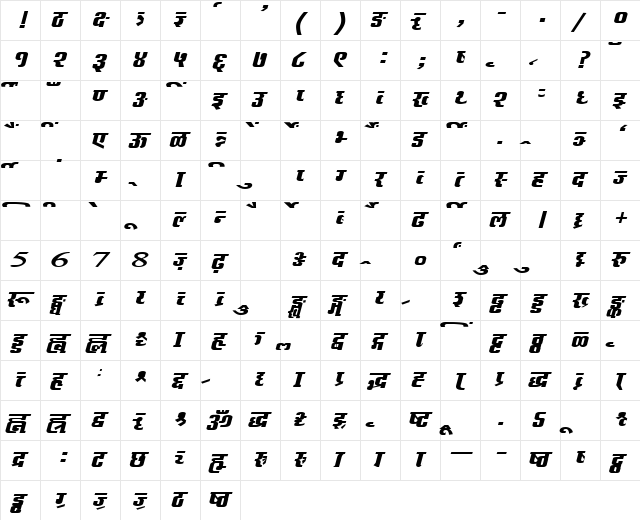
AkrutiDevAkshardhara BoldItalic
Design Context for AkrutiDevAkshardhara Typeface
AkrutiDevAkshardhara offers clean, dependable letterforms without strong stylistic allegiance, making it a practical choice for designers who need flexibility. The dynamic lean of this cut emphasises speed and emphasis in any layout. The heavy weight commands attention and anchors typographic hierarchies.
Pro Tip: Use AkrutiDevAkshardhara for emphasis, pull quotes, and subheadings where its slanted energy can add rhythm to the layout.